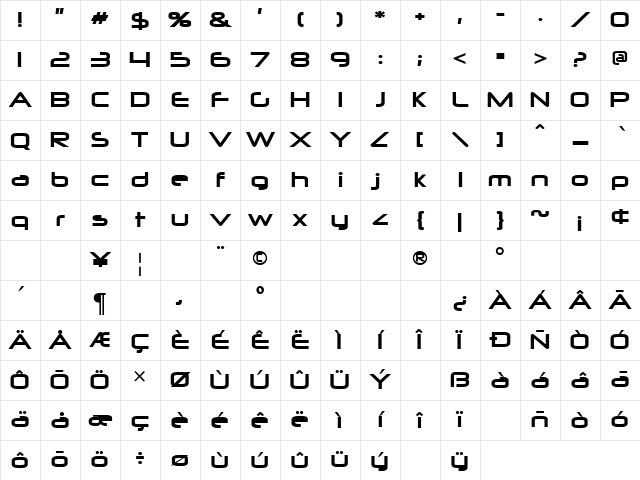
Neuropolitical Regular
Neuropolitical Family
Neuropolitical Regular
Complete Neuropolitical Regular glyph index. Displaying only characters natively supported by Neuropolitical Regular font.
Design Context for Neuropolitical
Neuropolitical is a composed and adaptable typeface that performs quietly and consistently across a wide range of design contexts.